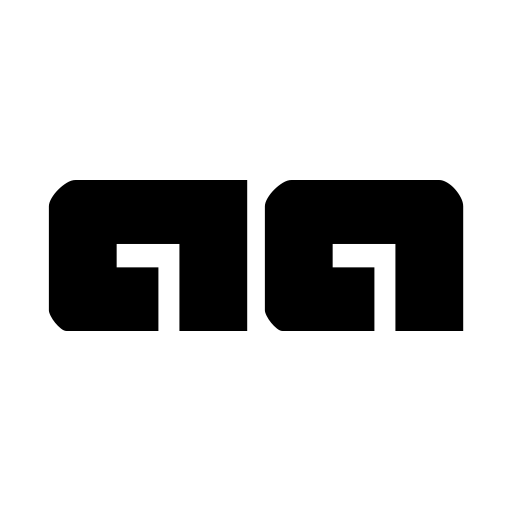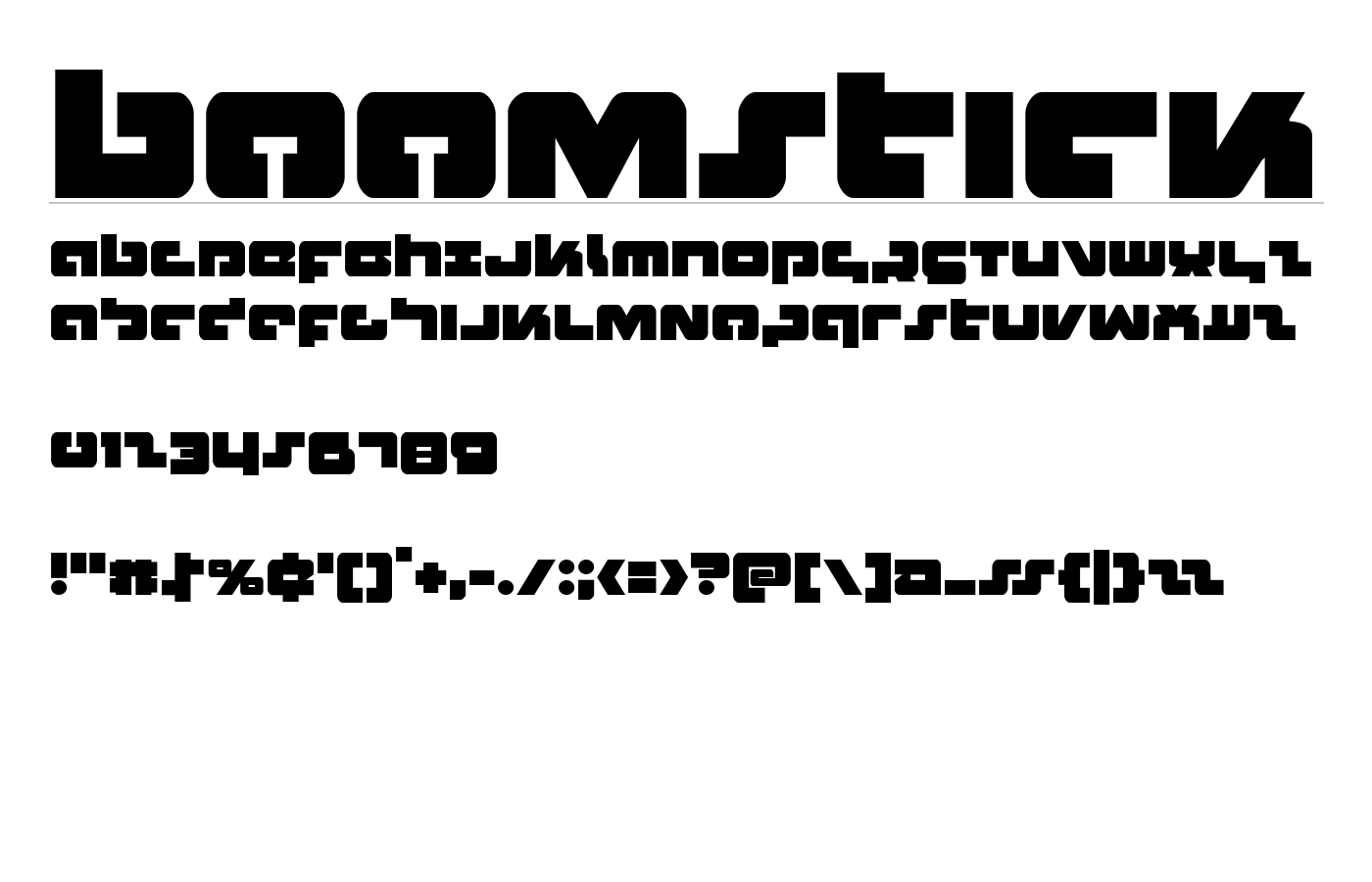
Boomstick is a bold, geometric sans serif font with a strong, blocky presence and high visual impact. Its dense, modular letterforms and sharp, angular edges give it a modern, tech-inspired feel perfect for attention-grabbing logos, headlines, or branding in industries like gaming, technology, or urban culture. This font works best in display use where a futuristic and edgy personality is desired.
Boomstick Font
About Boomstick Font